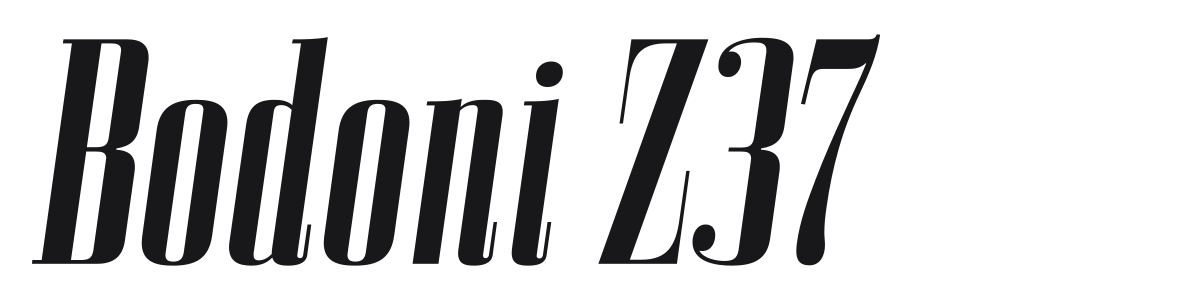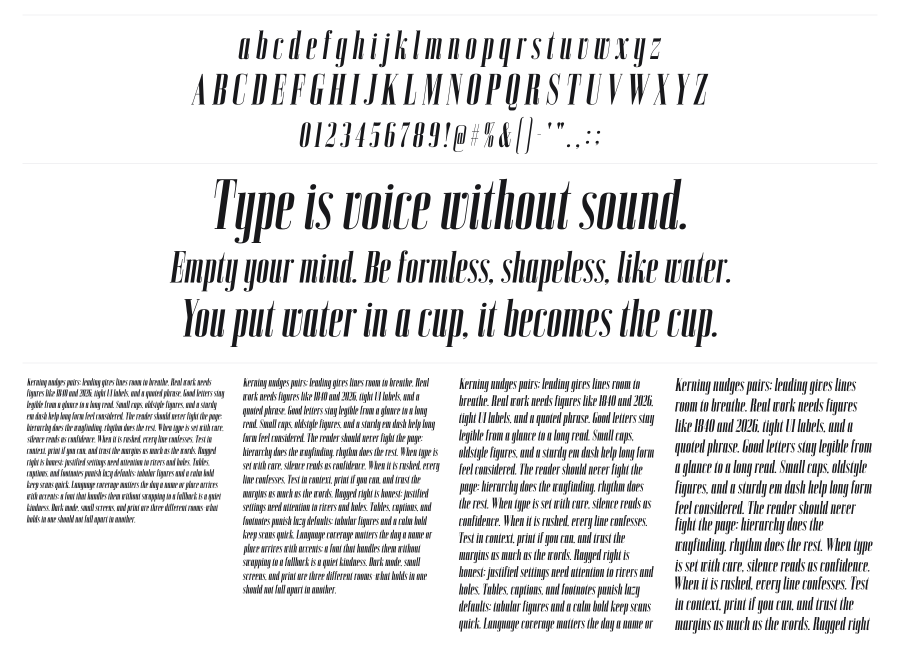
Bodoni Z37
Bodoni Z37 is a contemporary condensed italic interpretation of the classic Bodoni didone, built on extreme stroke contrast and sharp geometric discipline. Flat-sided curves keep the design crisp on modern screens while retaining the warmth and rhythm of the historical source. The result lands naturally in fashion editorials, luxury packaging, and art book covers where drama and restraint need to coexist.